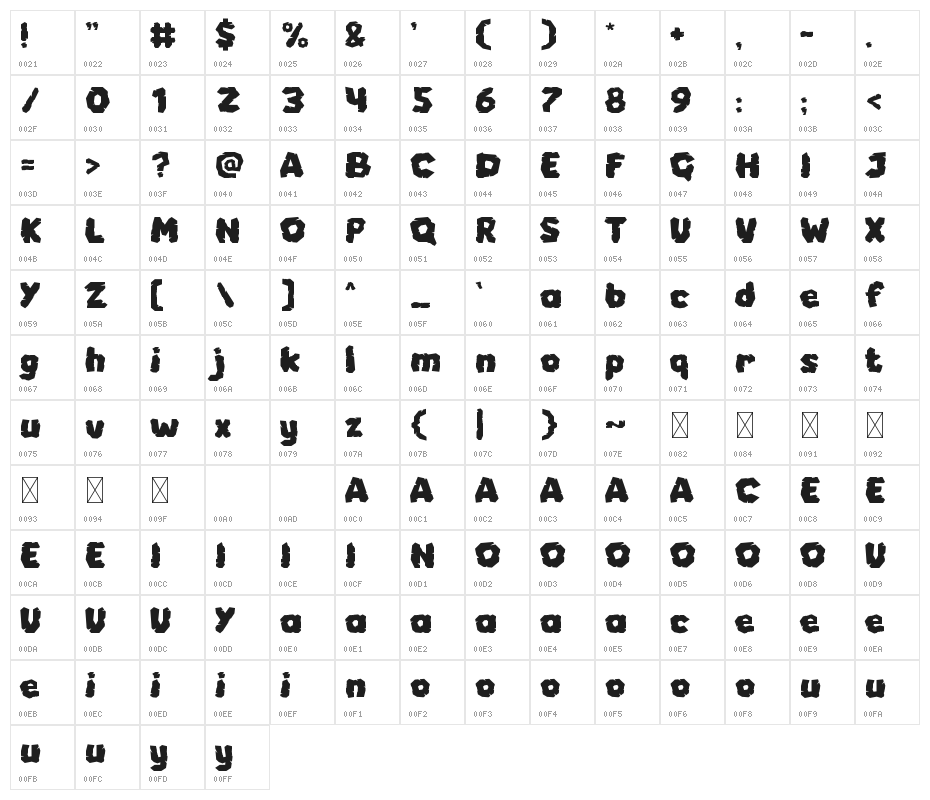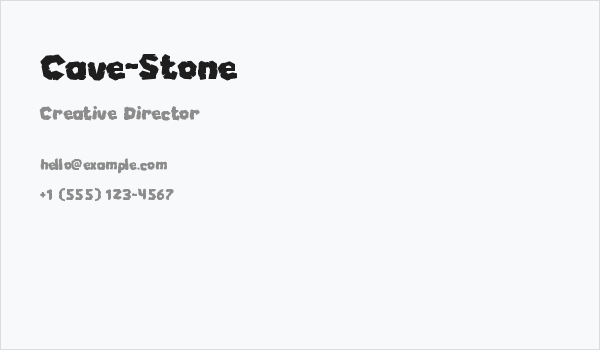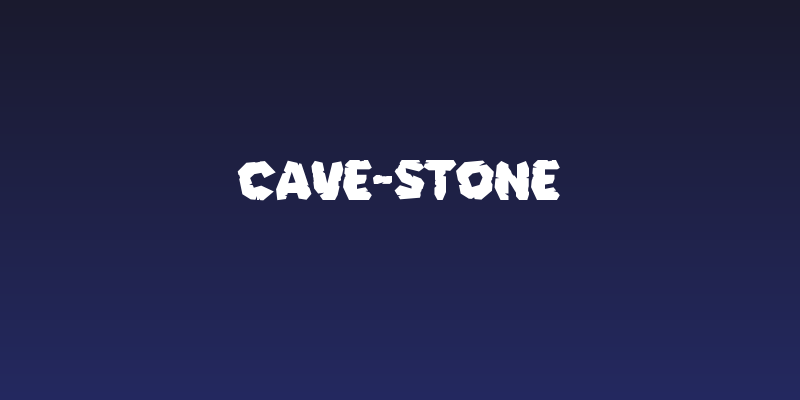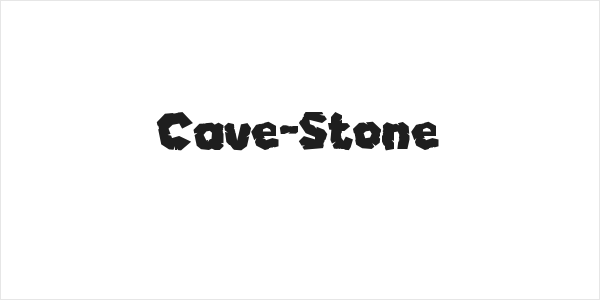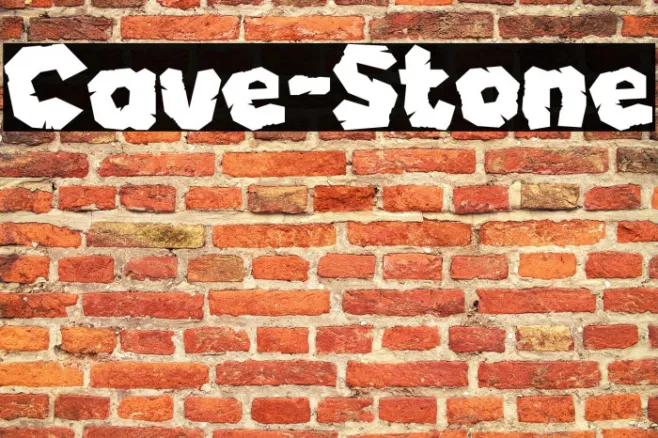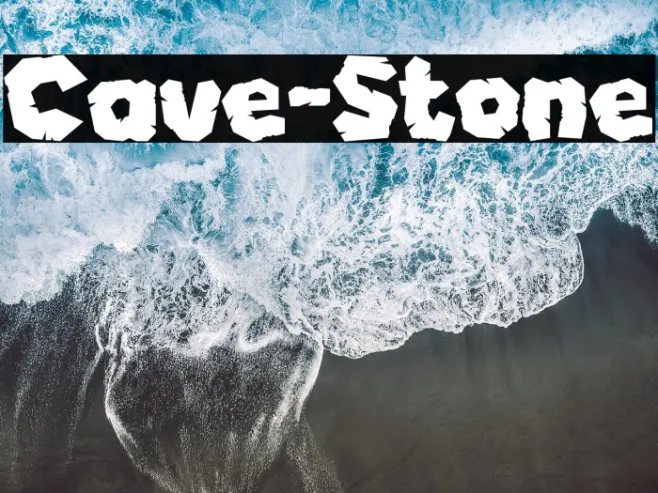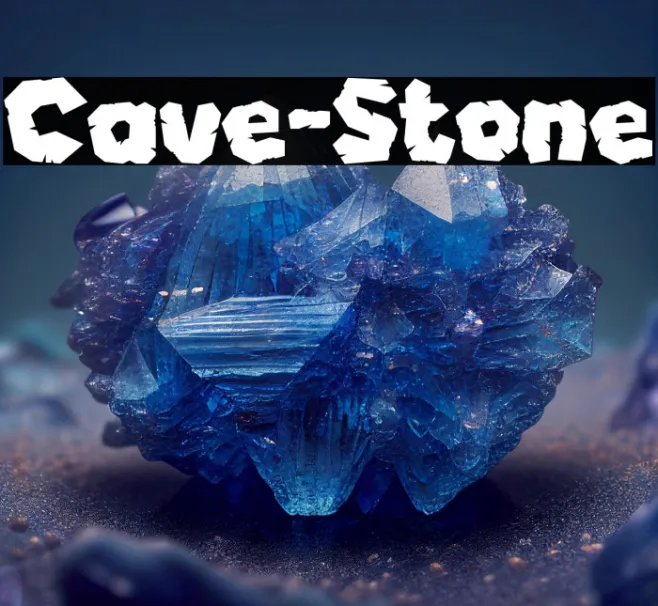
Cave-Stone Font
Cave-Stone Description
This font features a rugged, stone-like appearance, reminiscent of ancient carvings. The characters are bold and jagged, with irregular edges that give a sense of being chiseled from rock. The uppercase and lowercase letters maintain a consistent style, with a strong presence and a unique, primitive aesthetic. Numbers and special characters follow the same design principles, ensuring a cohesive look across all text elements. This font's distinctive style makes it ideal for projects that require a raw, natural feel.
| Overall Style | Primitive, Natural, Rugged |
| Use Case | Headlines, Logos, Themed Posters |
| Proposed Projects | Ideal for prehistoric-themed designs, adventure branding, or any project needing a raw, natural aesthetic. |